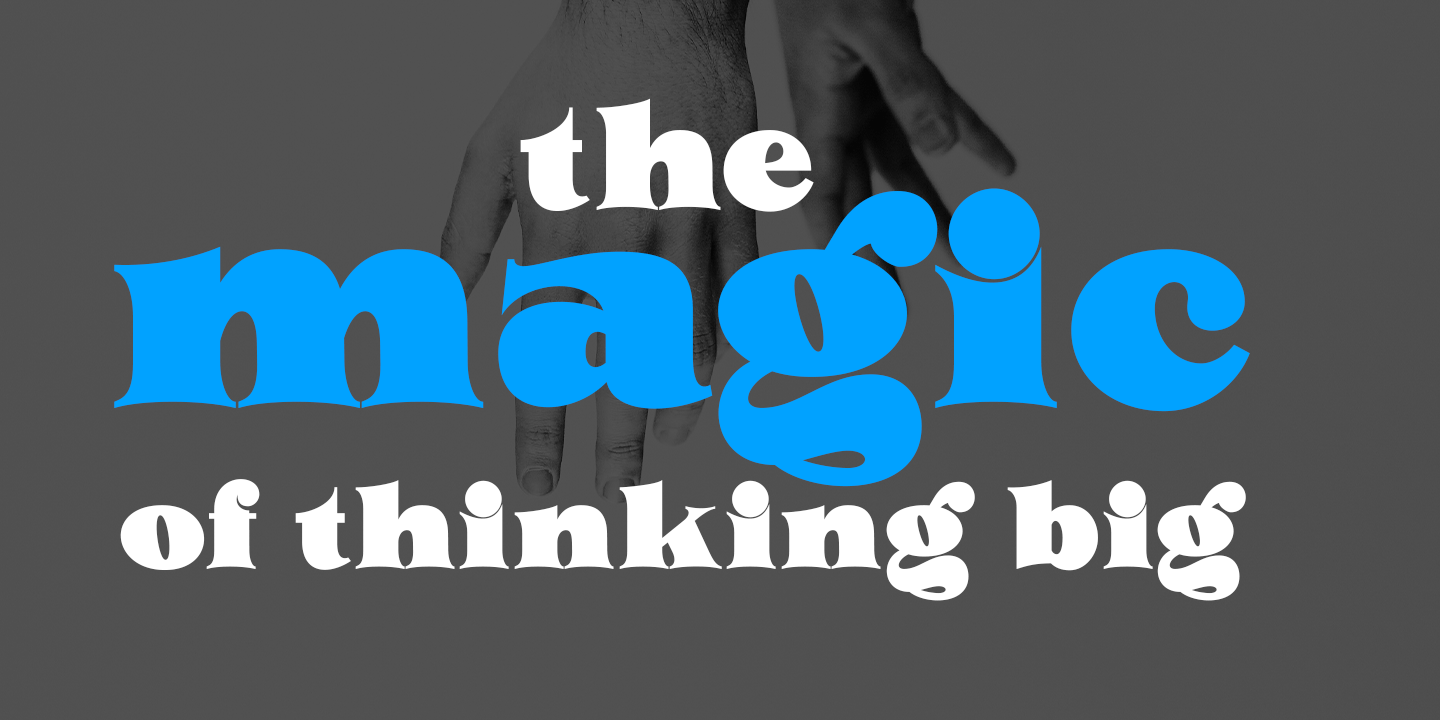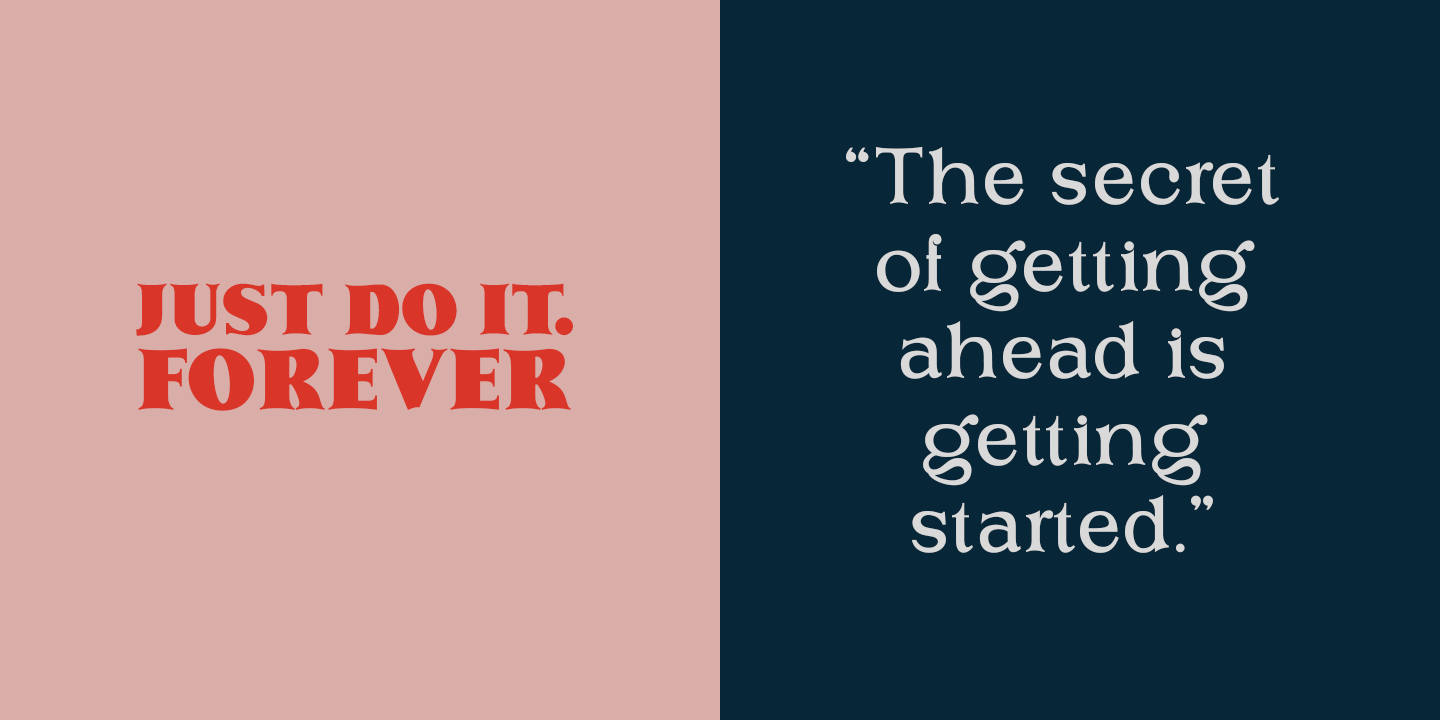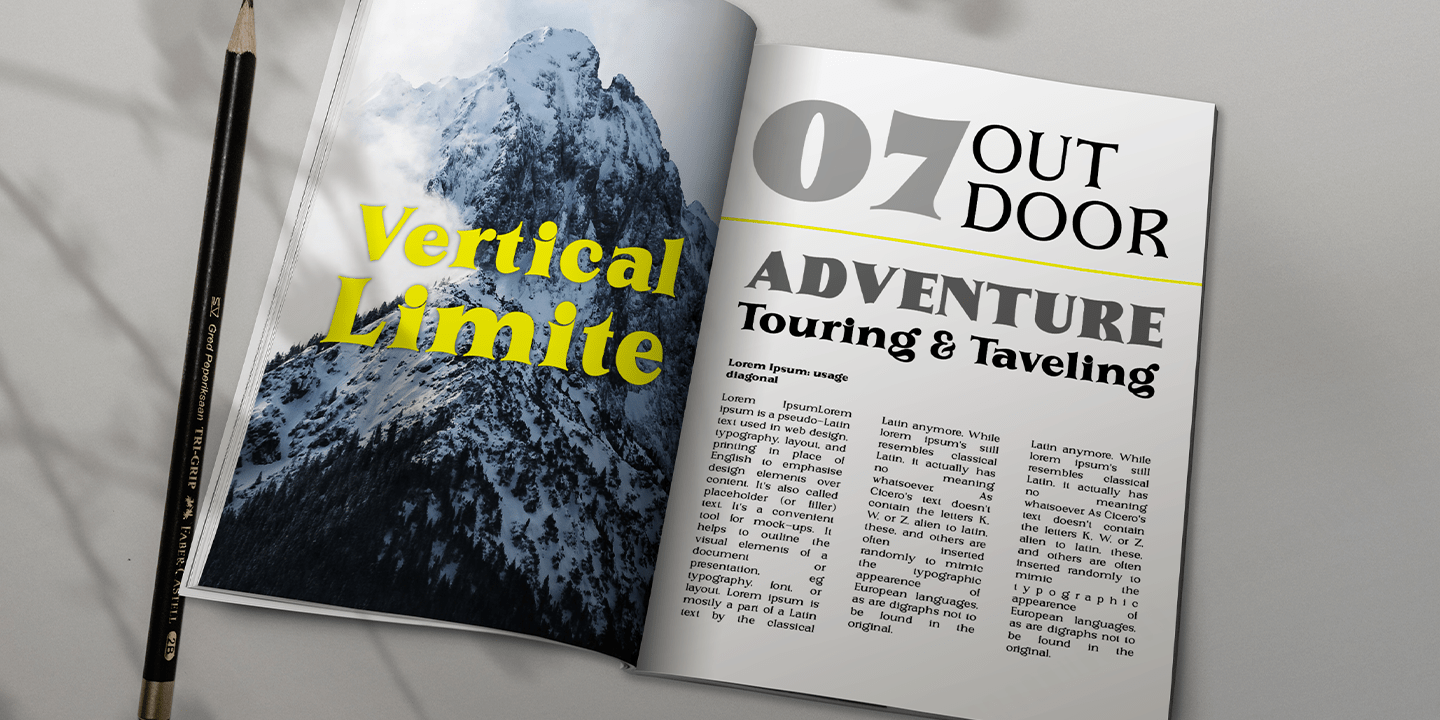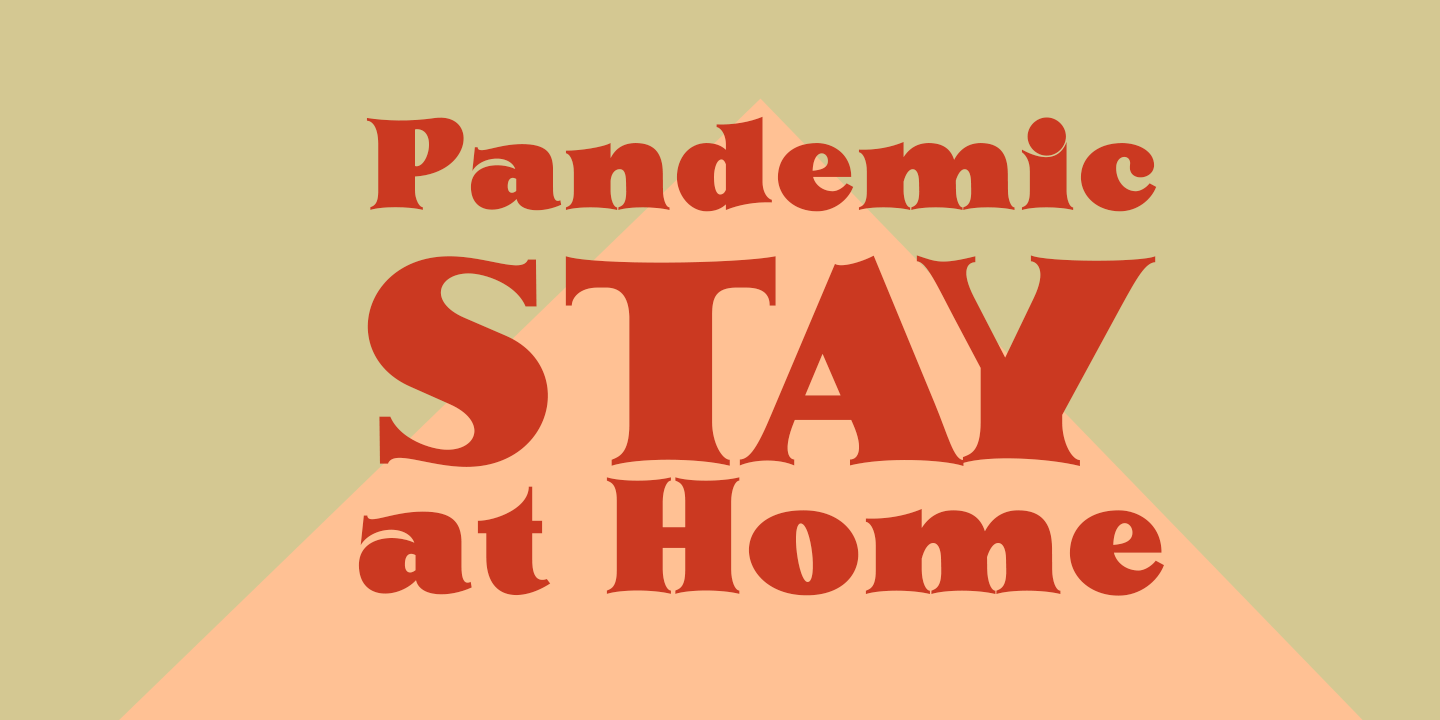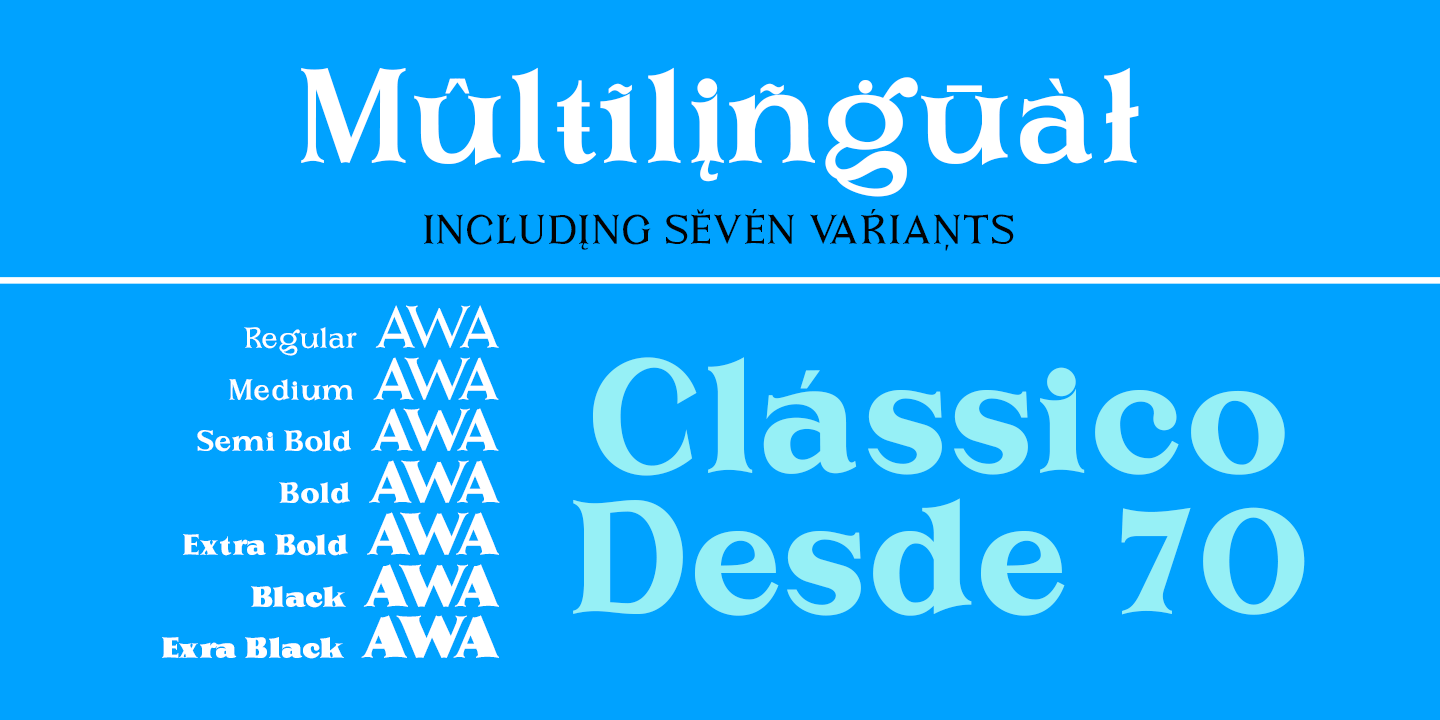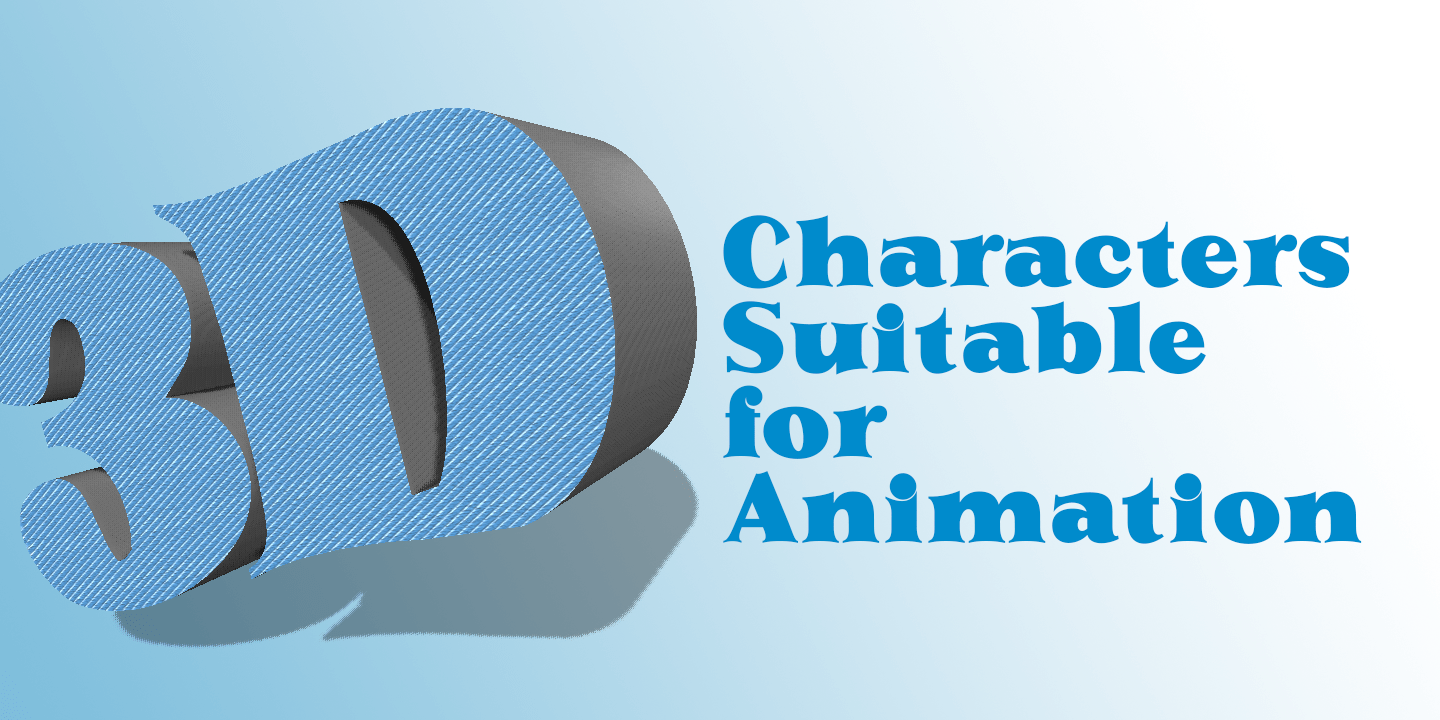
Marston
Font Family by Groen Studio
Marston is a Serif font family, which has a strong and bold character with seven variants, Marston gives a clear and elegant look to logos, quotes, advertisements and more.
Marston is a versatile typography filled with the character you want. with Marston you work. Marston has standard styles, Stylistic Alternates and ligatures. and includes upper and lower case letters, numbers and punctuation marks.
Multilingual support for various languages including: French, German, Spanish, Portuguese, Italian, Dutch, Finnish, Swedish, and more.